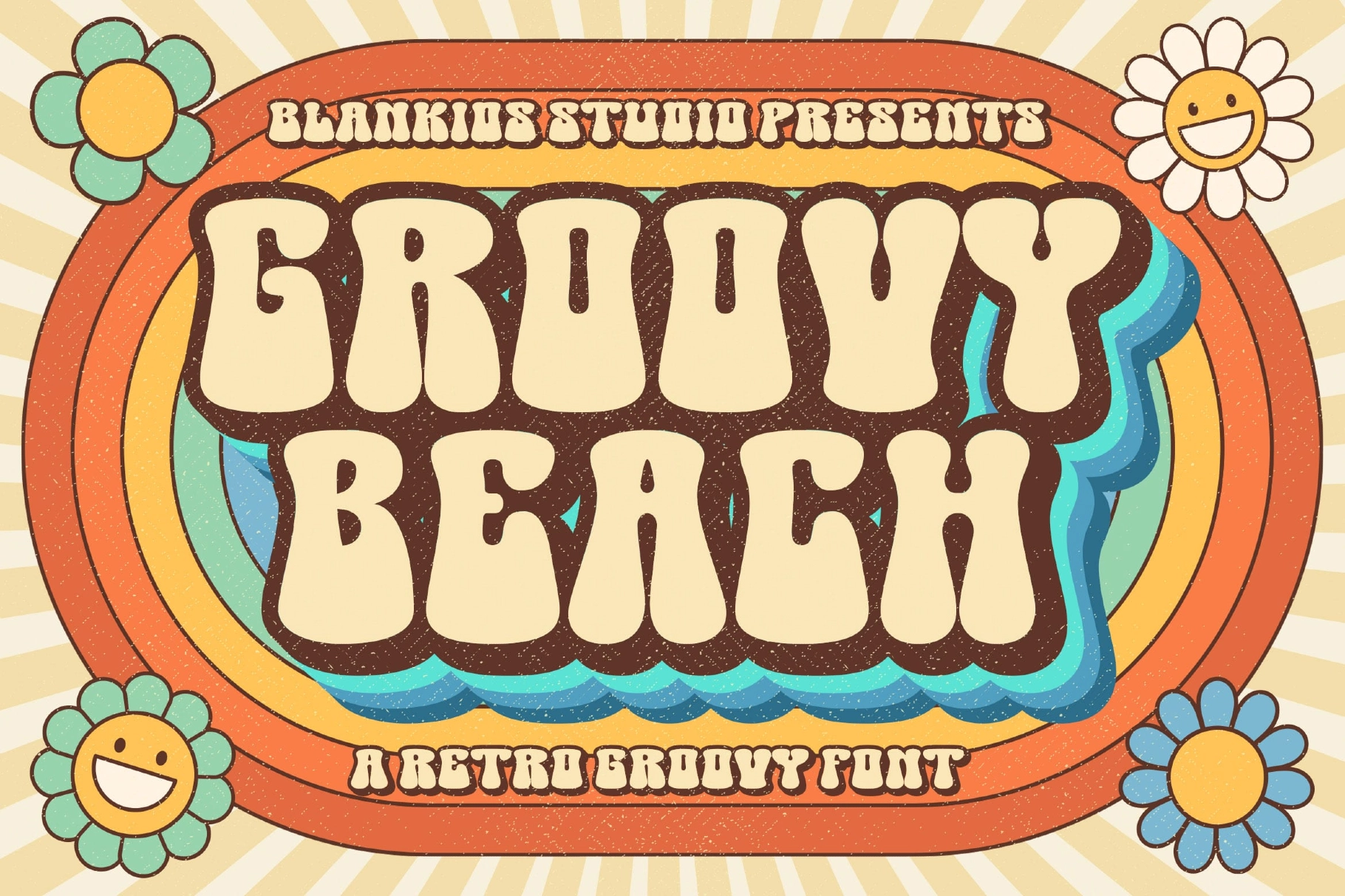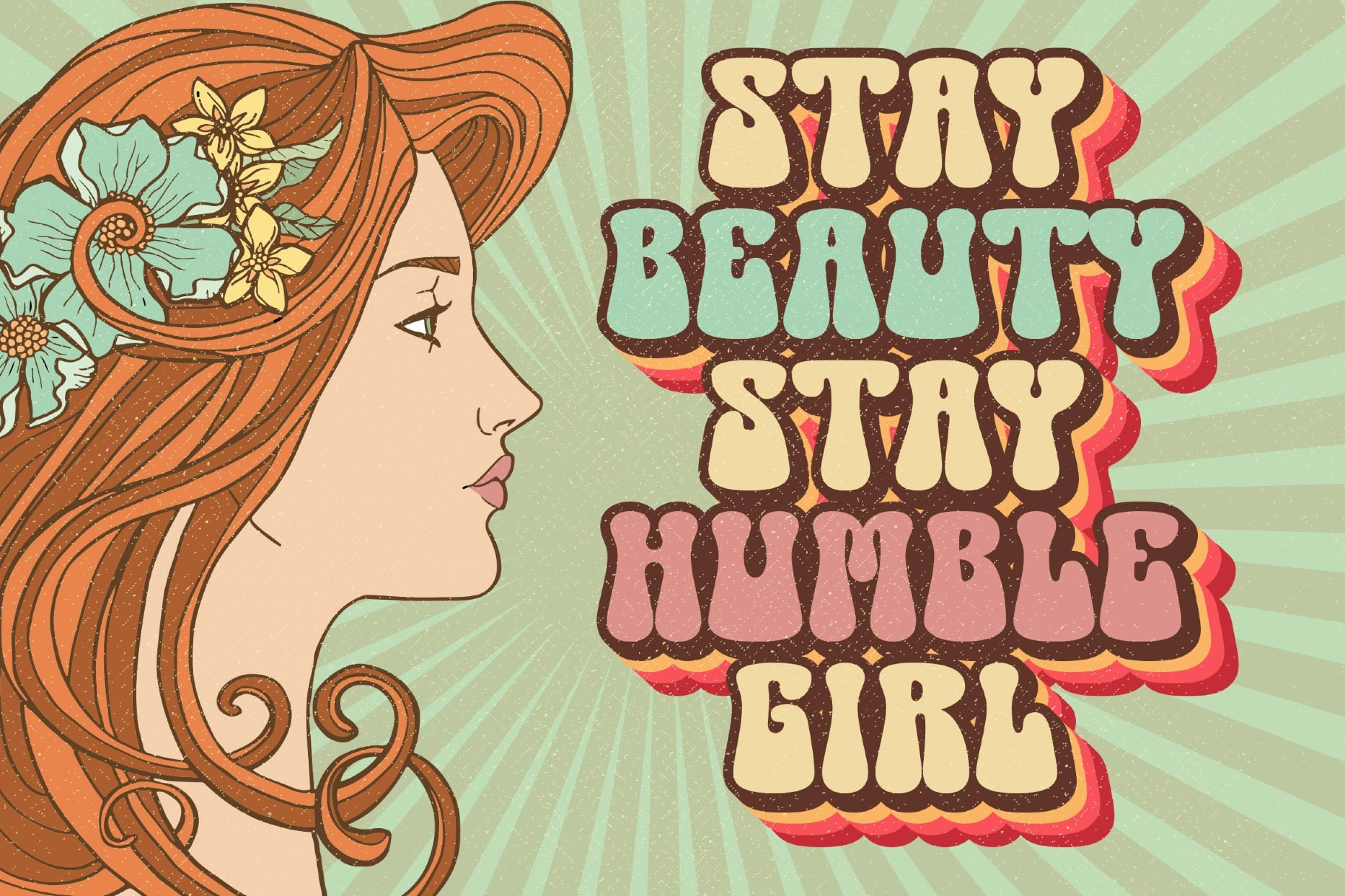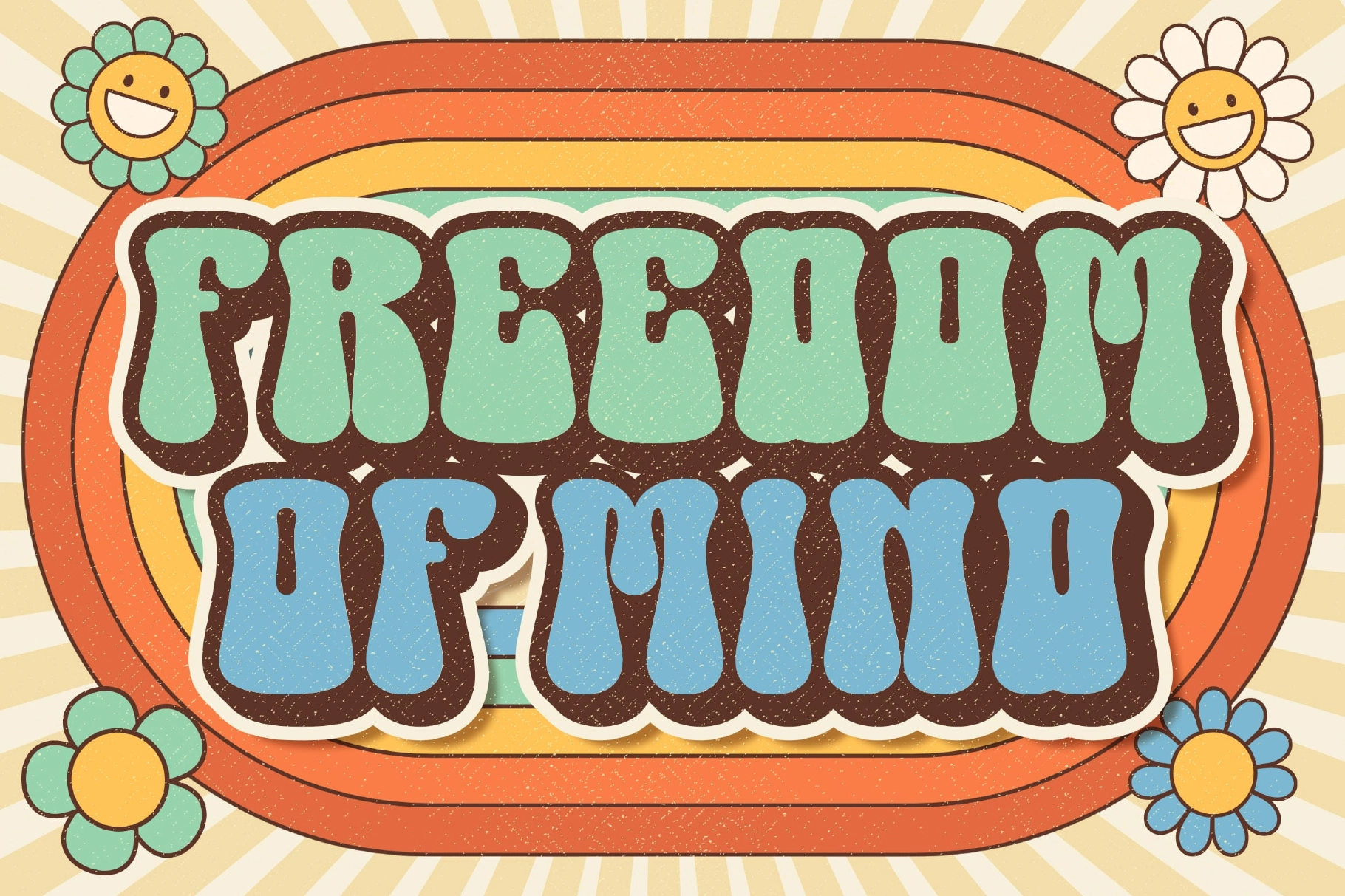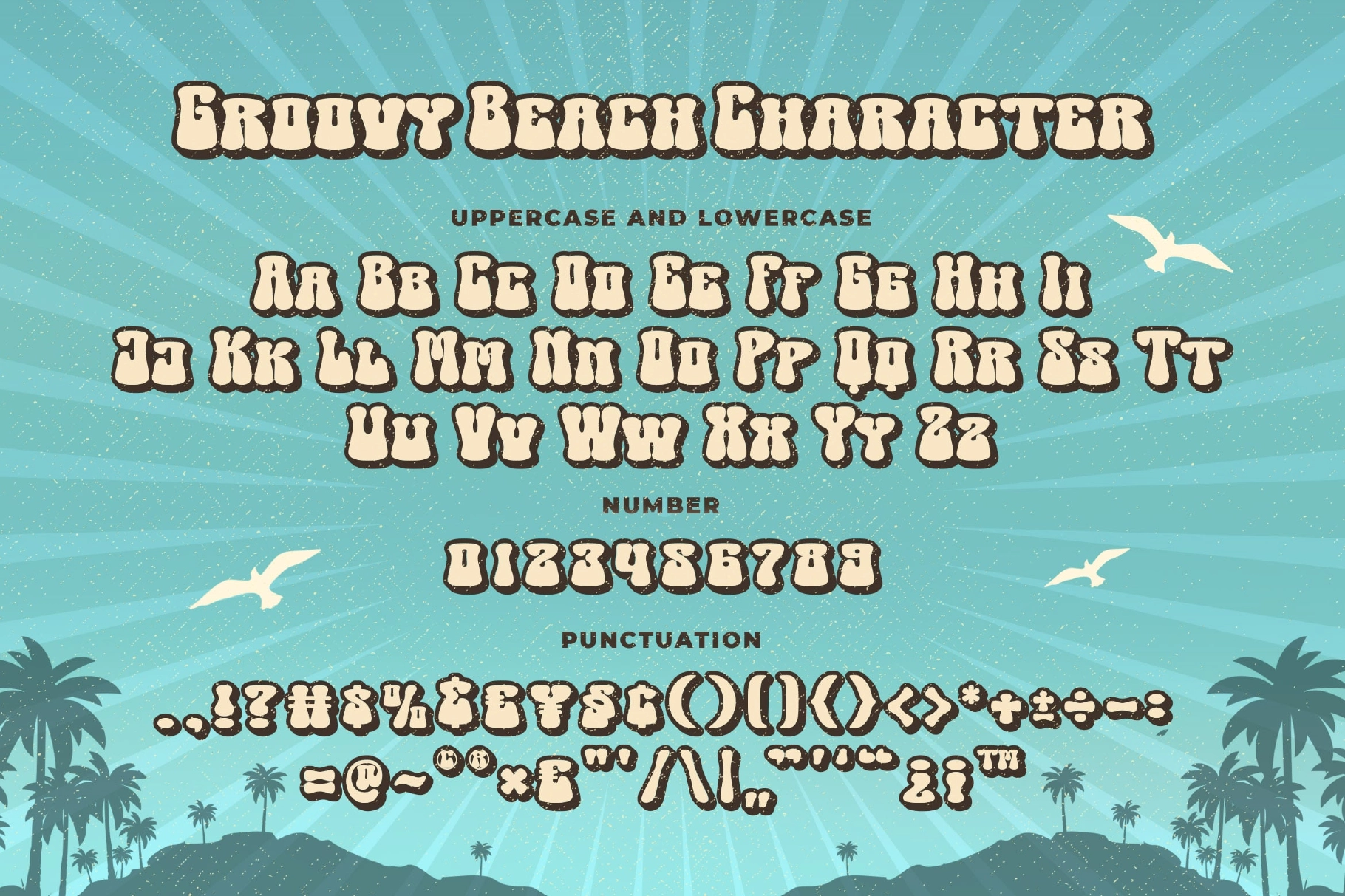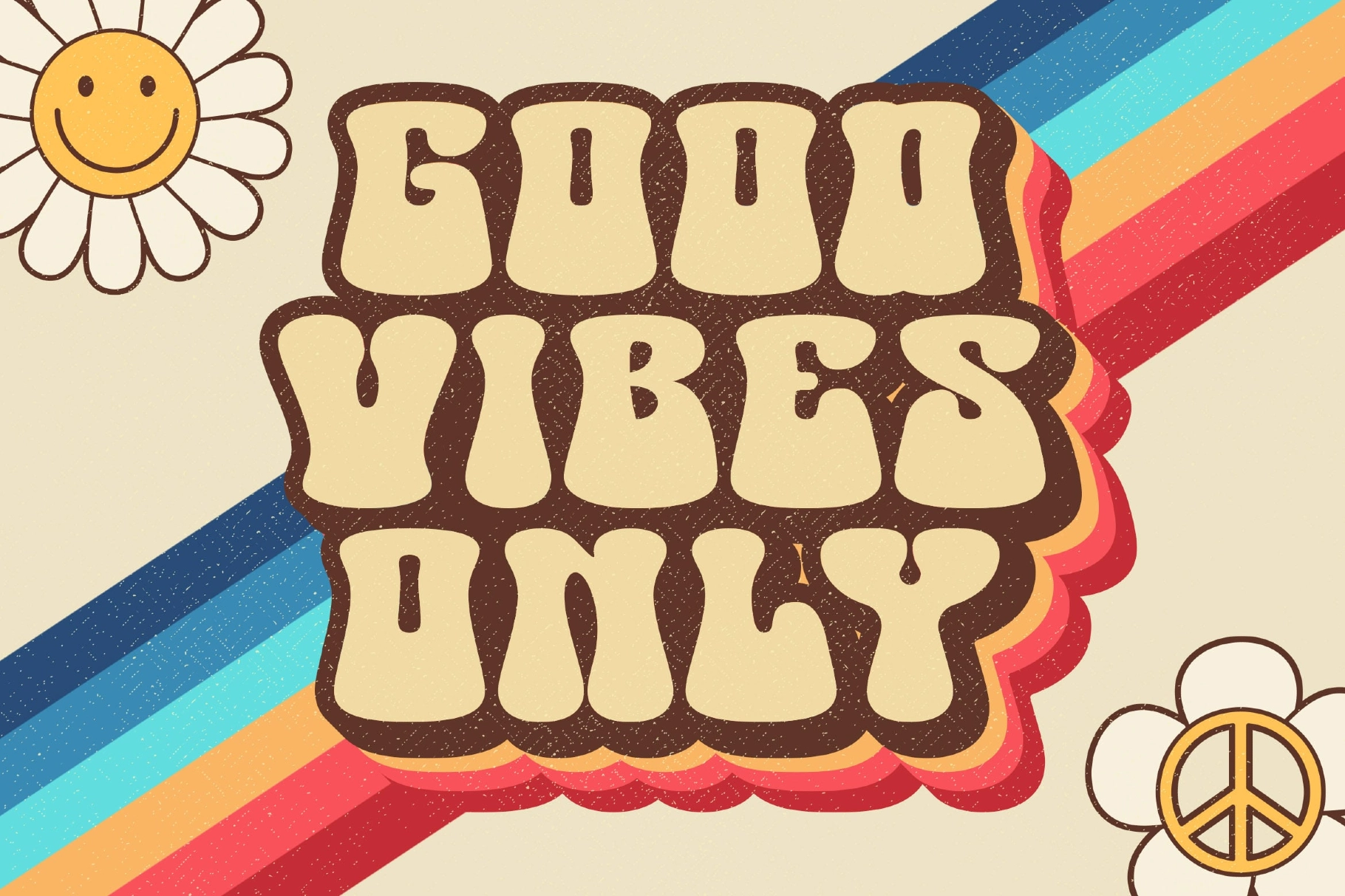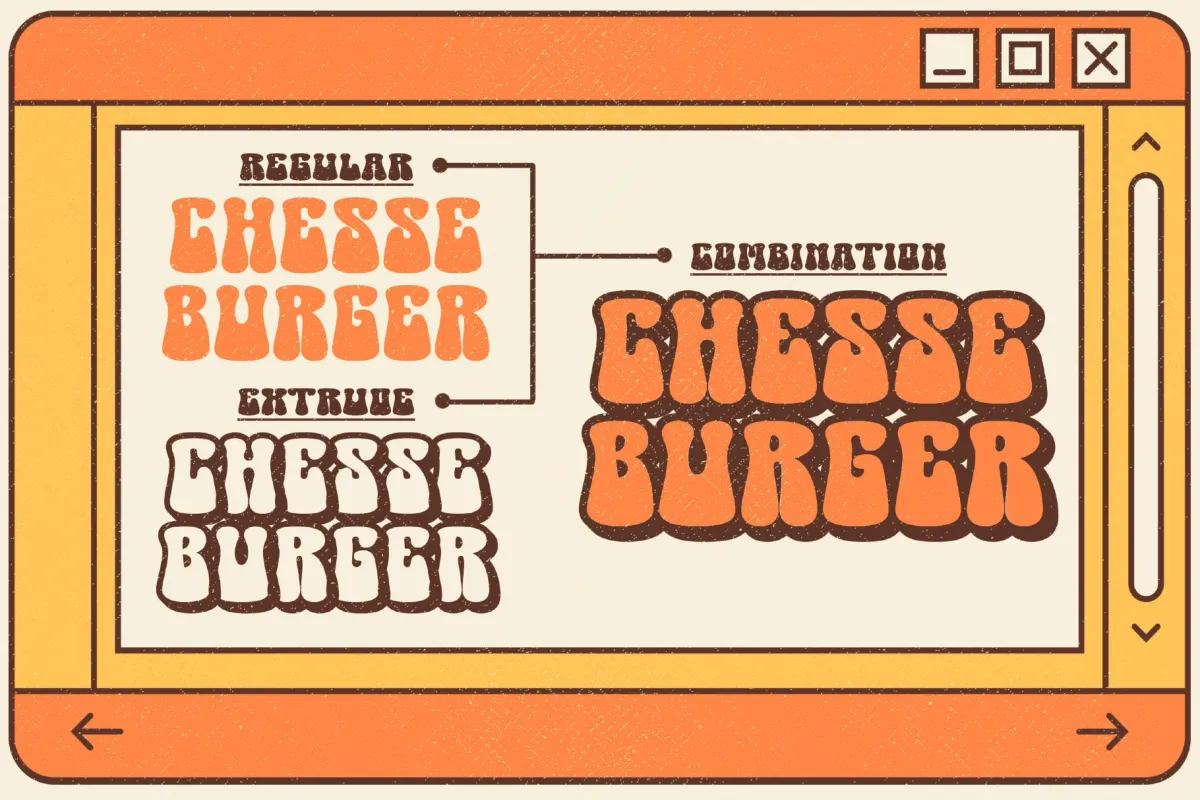
Groovy Beach a Retro Groovy Font
Groovy Beach – Retro Groovy Font is a bold display typeface inspired by classic 70s groovy typography and vintage beach culture. With its chunky letterforms, soft curves, and playful retro personality, this font instantly brings nostalgic vibes and cheerful energy to any design. Its distinctive shapes create a fun and eye-catching look perfect for standout headlines.
Designed for retro-inspired visuals, Groovy Beach works beautifully for posters, merchandise, packaging, logos, book covers, and vintage-themed branding. Whether you're creating psychedelic designs, groovy festival posters, or playful lifestyle graphics, this font delivers a strong retro character with a warm nostalgic feel.
• Regular & Extrude Styles
• Numerals & Punctuation
• Ideal for Retro Posters, Vintage Branding, Merchandise & Packaging